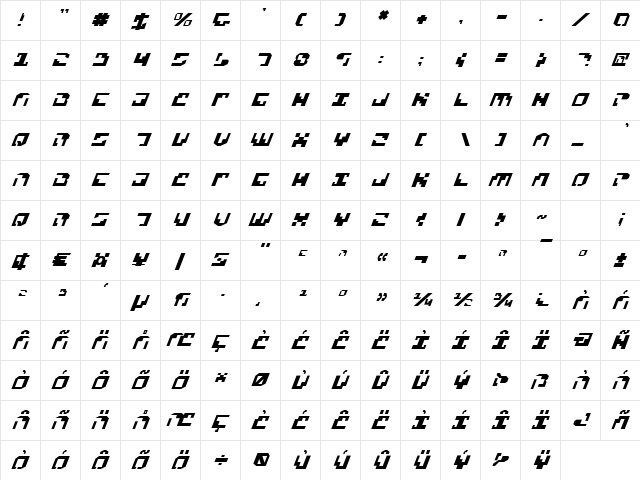
Xenophobia Italic Italic
Design Context for Xenophobia Italic Typeface
Xenophobia Italic is a composed and adaptable typeface that performs quietly and consistently across a wide range of design contexts. The slanted form adds forward momentum and visual energy.
Pro Tip: Try Xenophobia Italic for annotation and caption copy alongside an upright companion — the contrast in angle creates a dynamic but ordered typographic system.